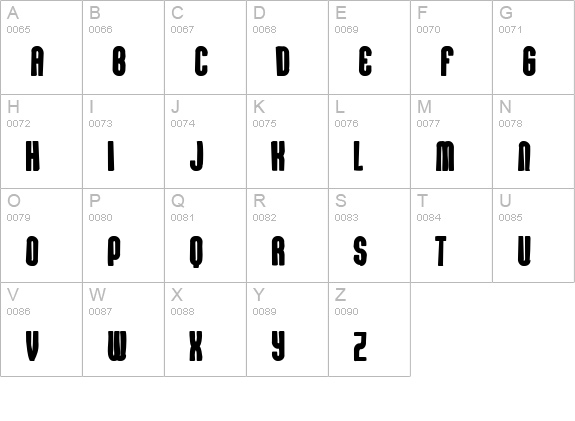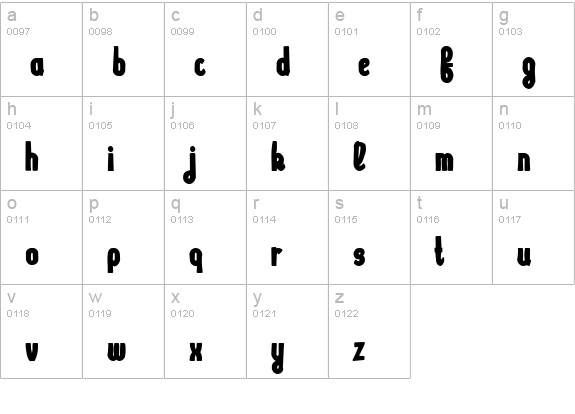
Kleptocracy Ink Font Details
Kleptocracy Ink font is a bold and dynamic typeface that exudes a sense of power and sophistication. Its sleek lines and sharp angles make it perfect for conveying a sense of authority and professionalism in any design project. The font's unique character sets it apart from the crowd, making it a versatile choice for a wide range of applications. What sets Kleptocracy Ink font apart is that it is freely available to download at FontsMarket.com. This means that you can access this high-quality font without any cost, making it a valuable addition to your font collection. Whether you're working on a branding project, advertising campaign, or any other creative endeavor, Kleptocracy Ink font is sure to make a bold statement and leave a lasting impression on your audience. Elevate your design work with the distinctive style and elegance of Kleptocracy Ink font today.